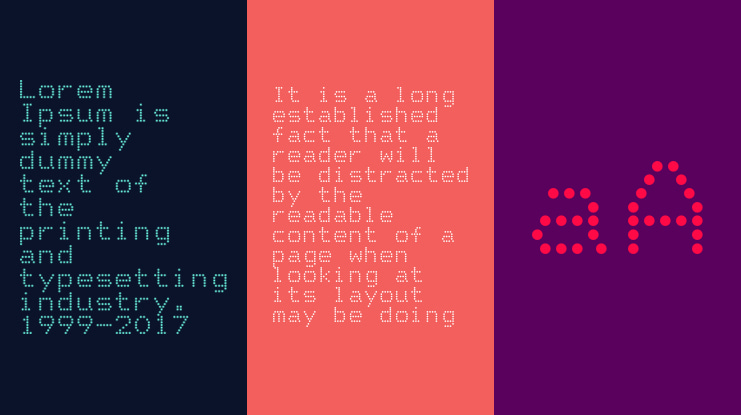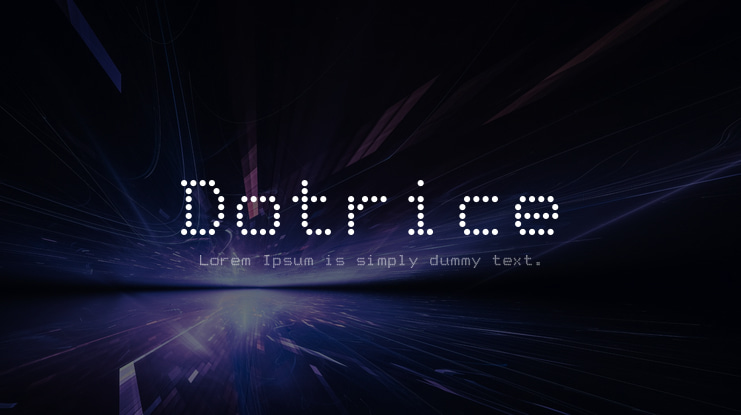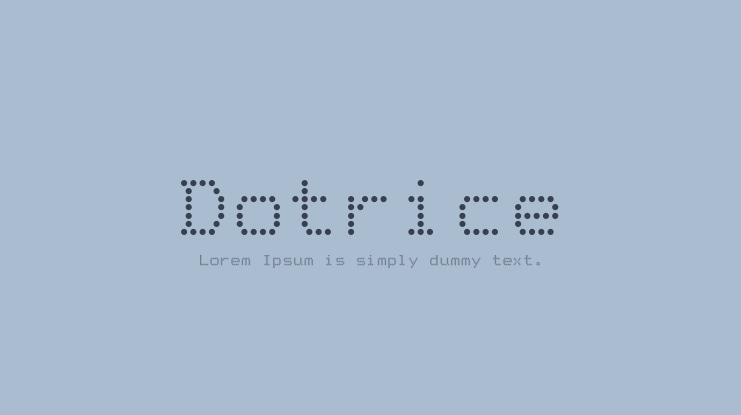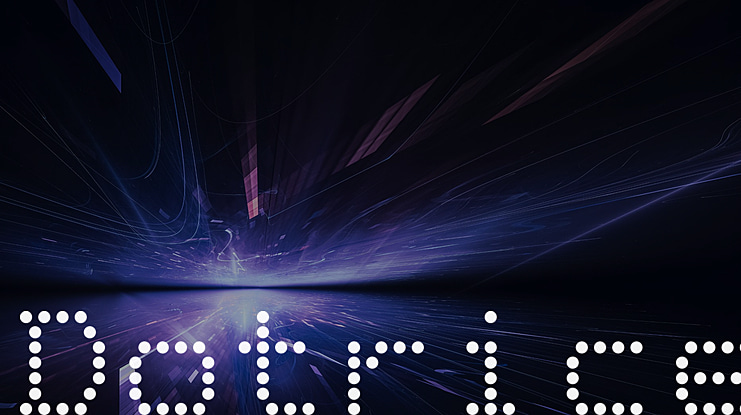
Designed to look like an old EPSON FX-80 printer. Actually, more like a brand new one, as the ink is distributed evenly and none of the pins in the print head are missing (yet).